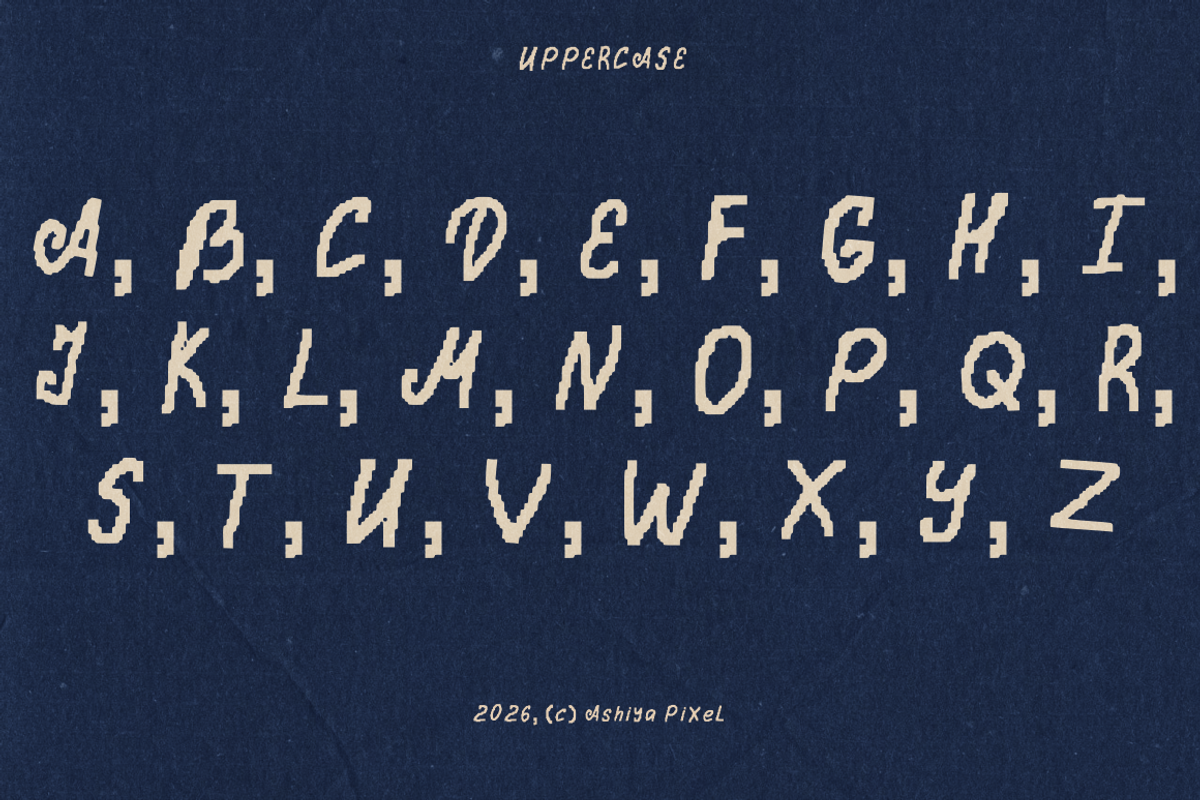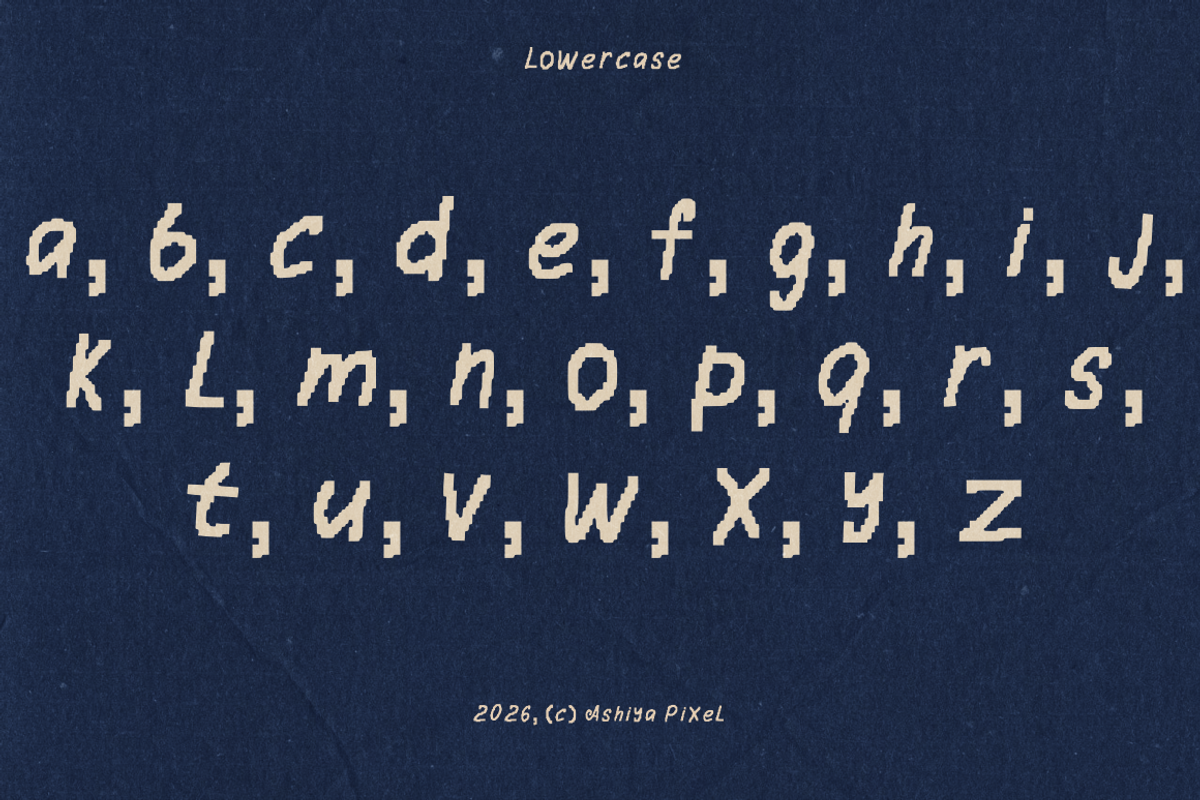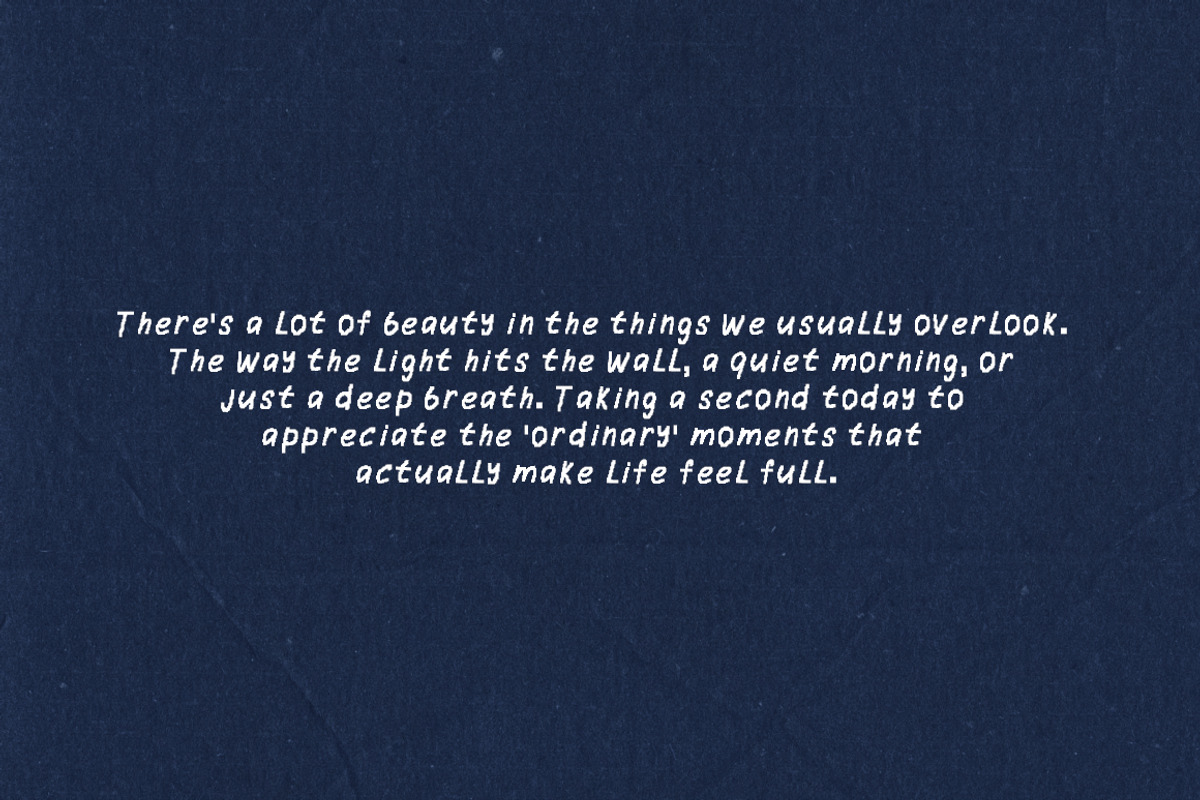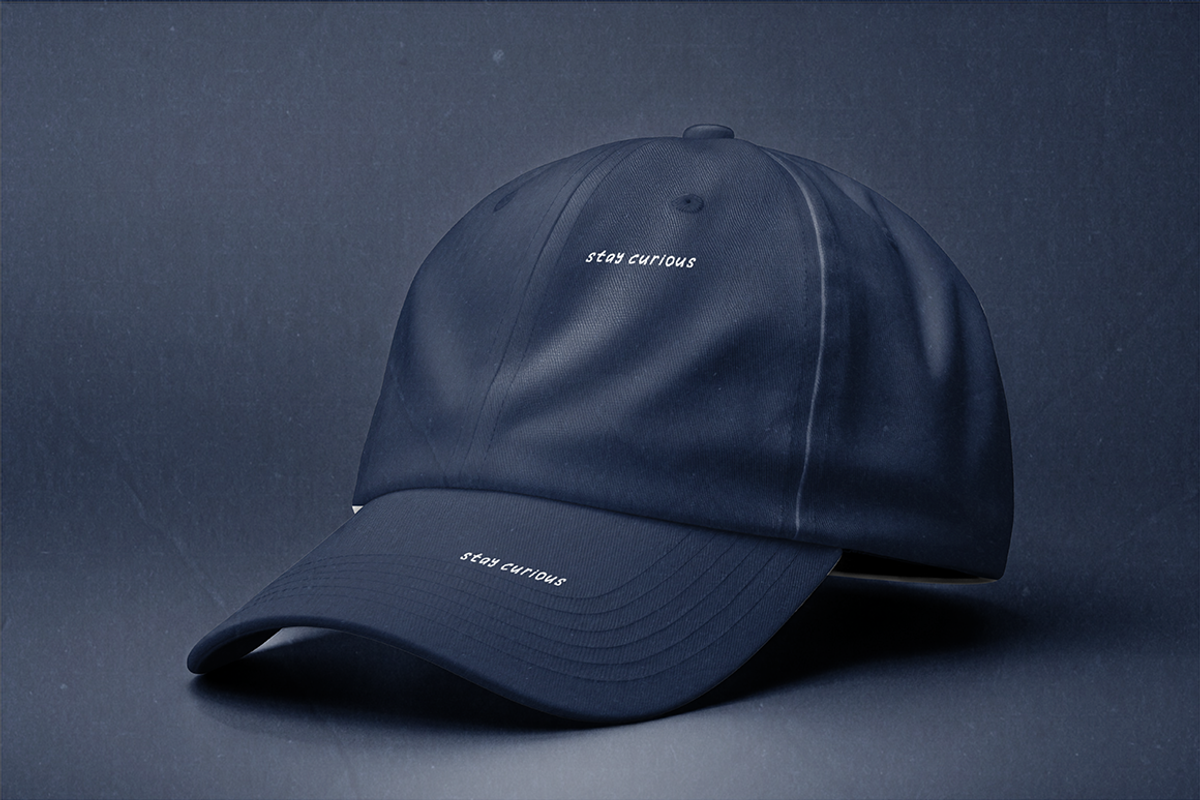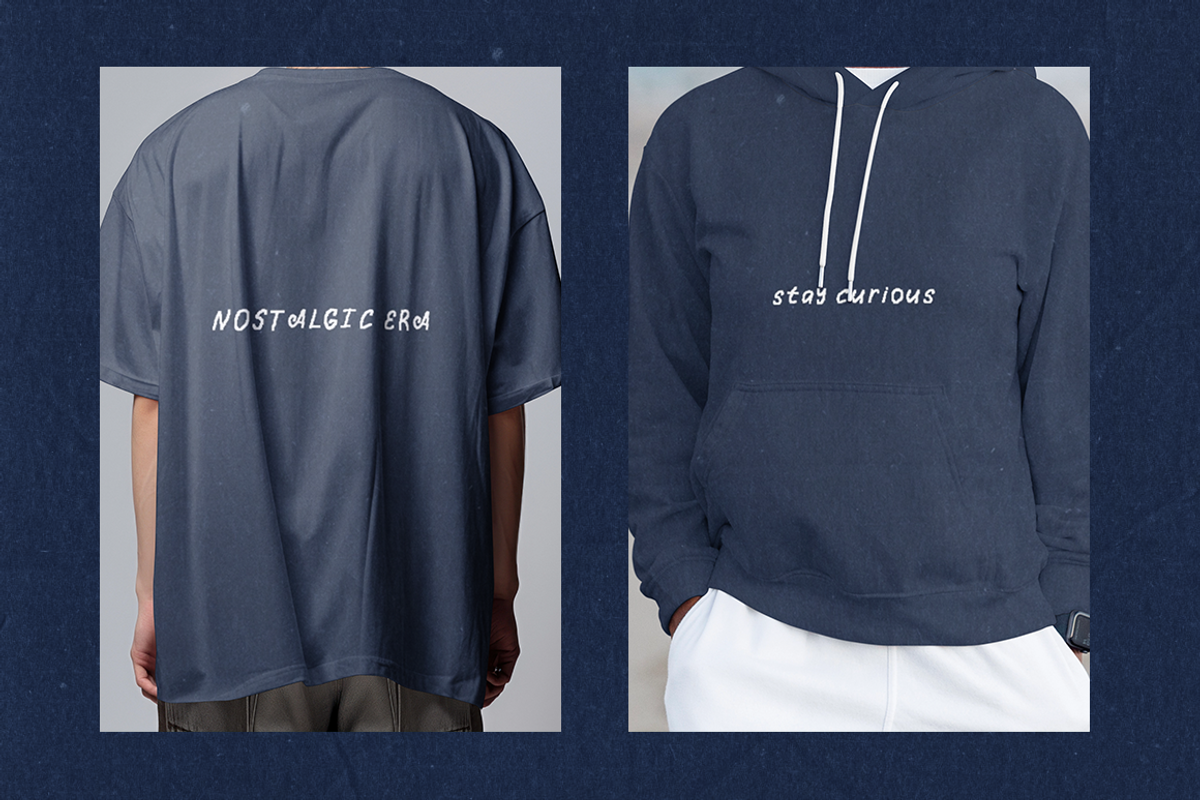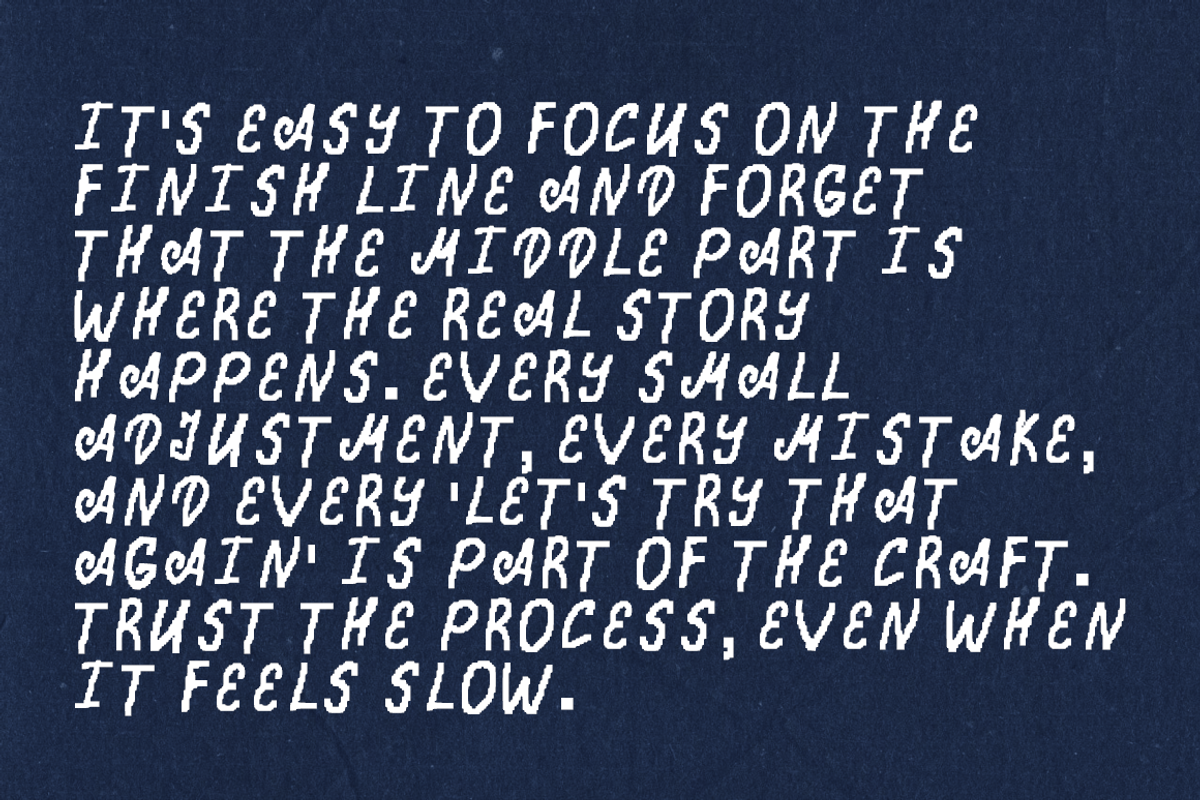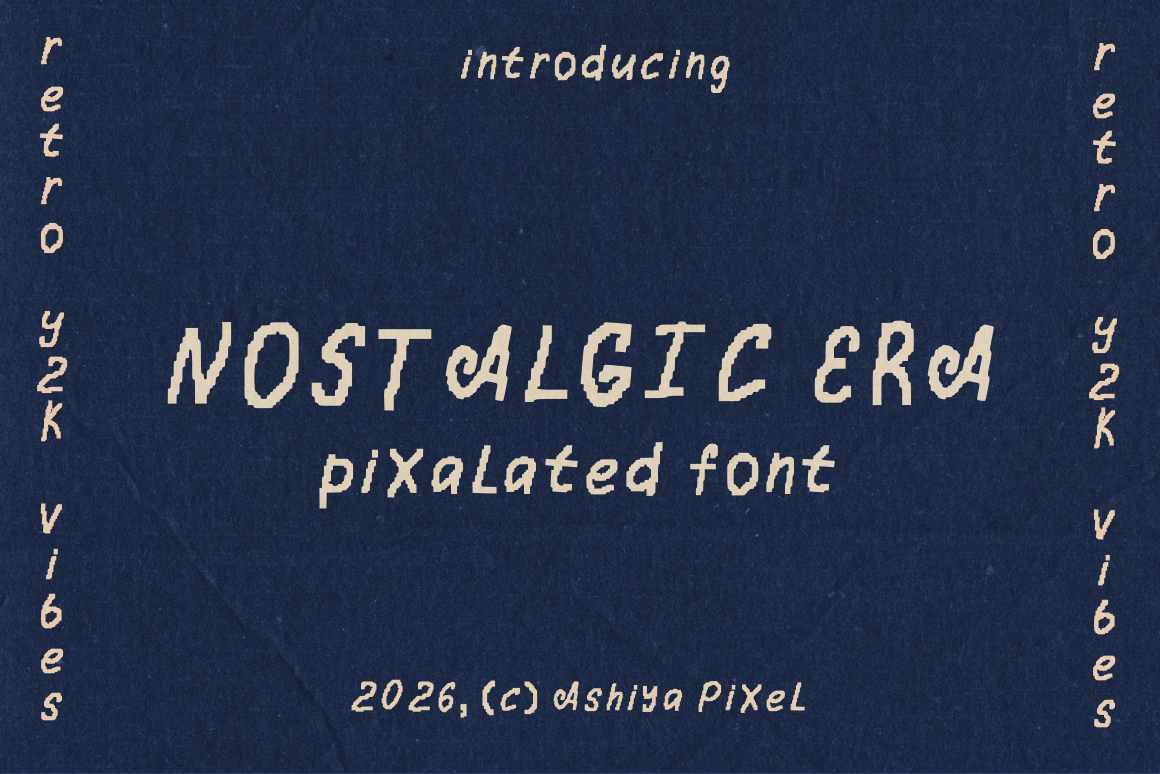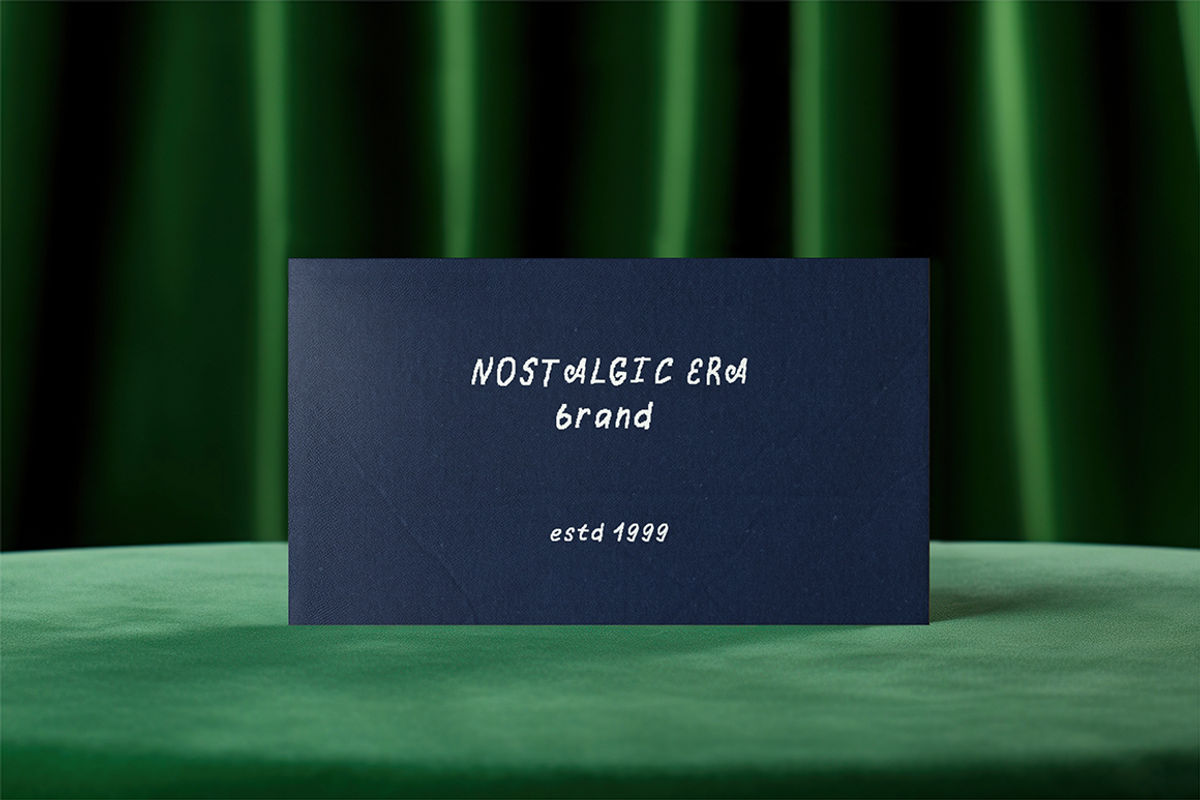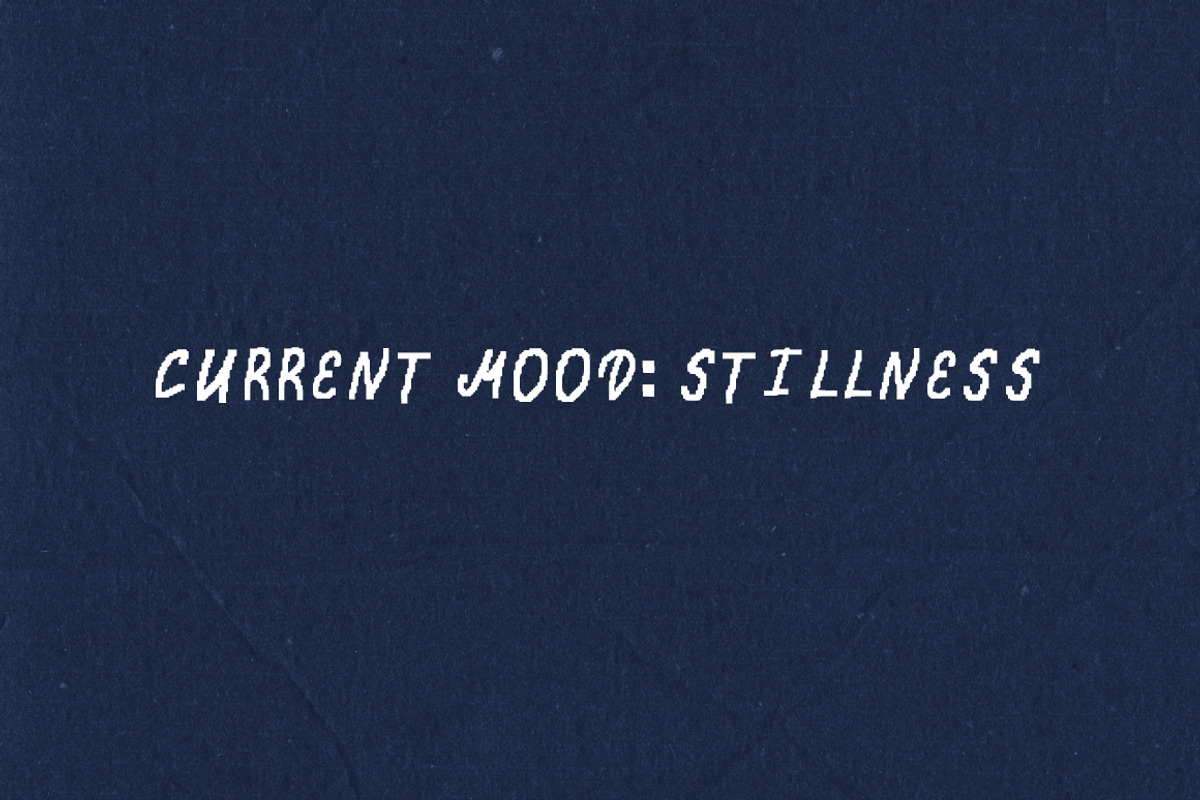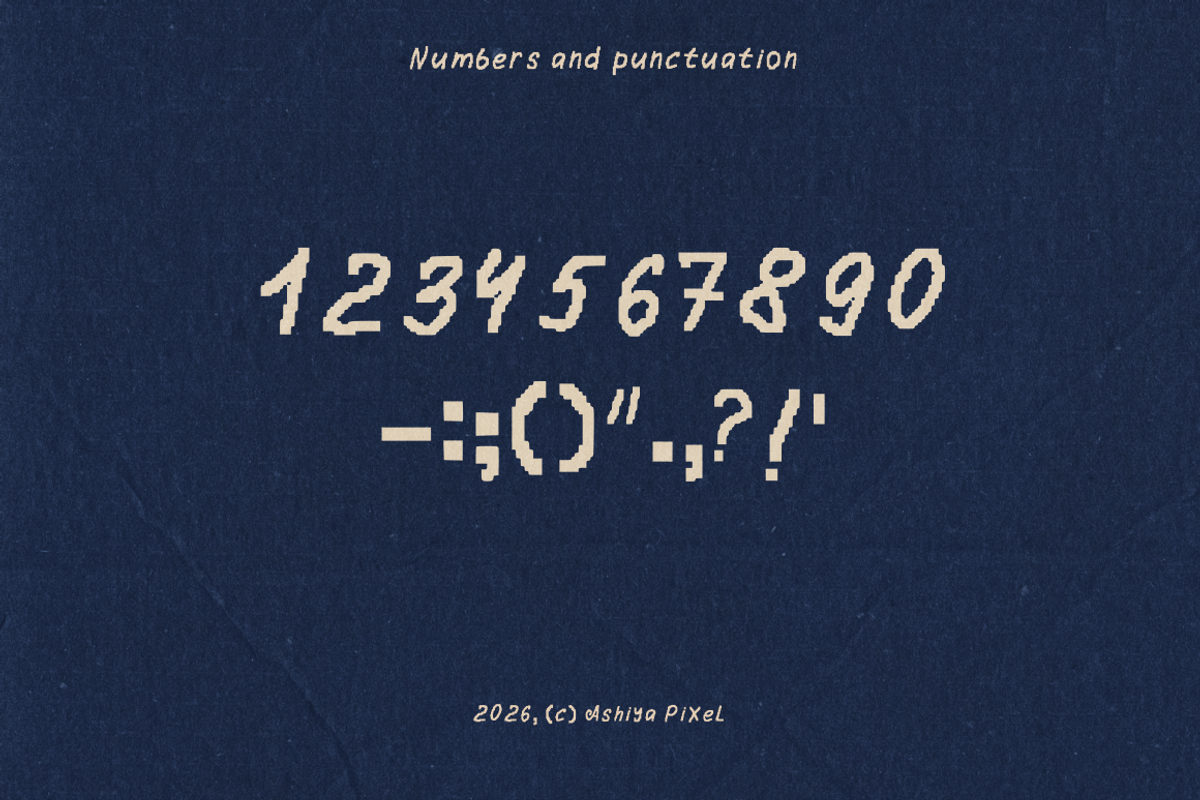
Nostalgic Era Y2K Display Font
Full character set (A-Z, a-z)
Numbers and basic punctuation
Perfect for headers, posters, stickers, and lofi-themed designs
Unique "pixel-handwriting" style for an authentic retro feel